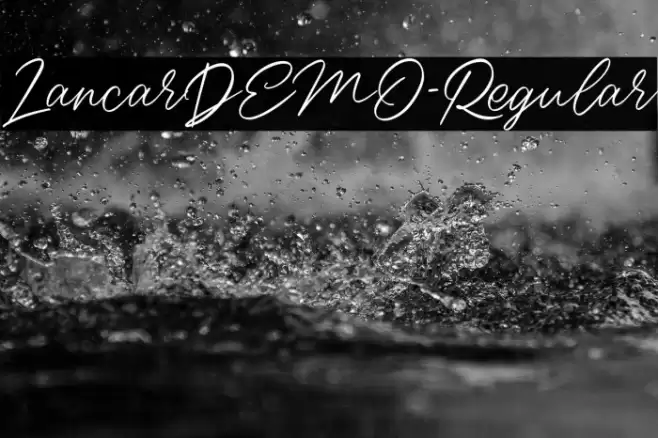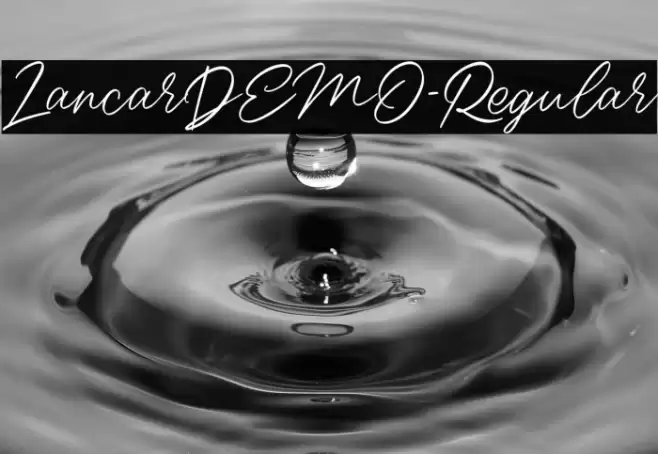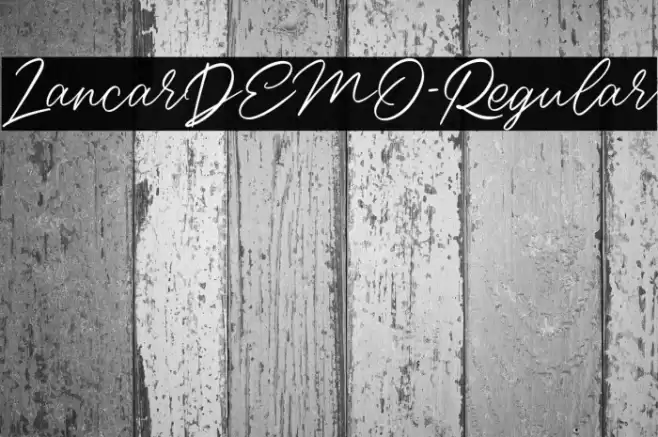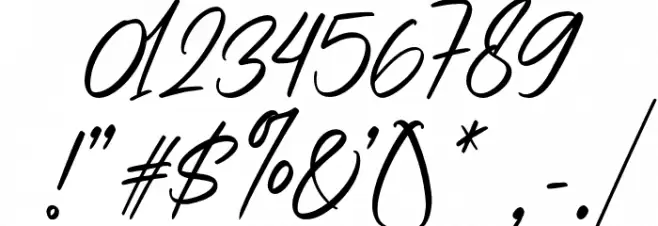
LancarDEMO-Regular Font
LancarDEMO-Regular Description
This font features a flowing, cursive style that exudes elegance and sophistication. The characters are connected in a smooth, continuous manner, reminiscent of traditional handwriting. The uppercase letters are slightly more embellished, with graceful loops and curves, while the lowercase letters maintain a consistent flow. The numerals are clear and maintain the cursive style, making them easily readable. Special characters are integrated seamlessly, adding to the font's versatility. The overall design is both classic and modern, suitable for a variety of applications.
A cursive, elegant font with smooth, connected characters and a classic-modern appeal from Regular fonts.
- Proposed Projects: Ideal for wedding invitations, greeting cards, personal branding, and elegant logos.
- Overall Style: Classic
- Use Case: Logos, Invitations, Personal Branding